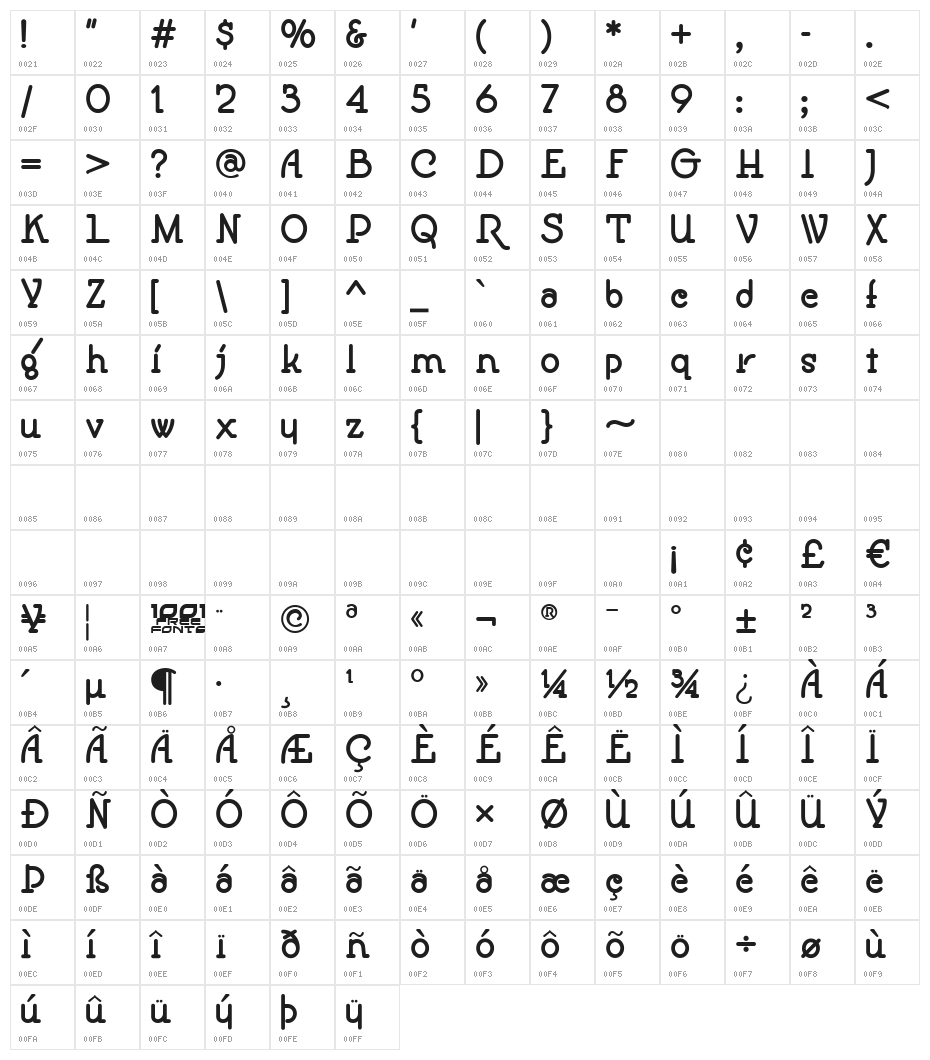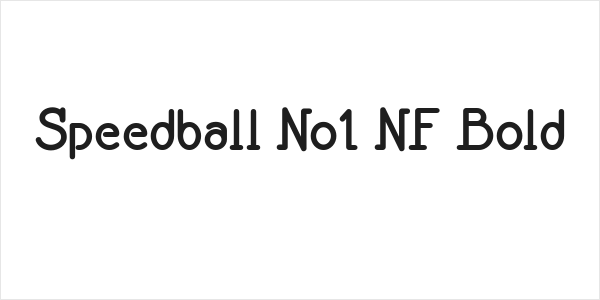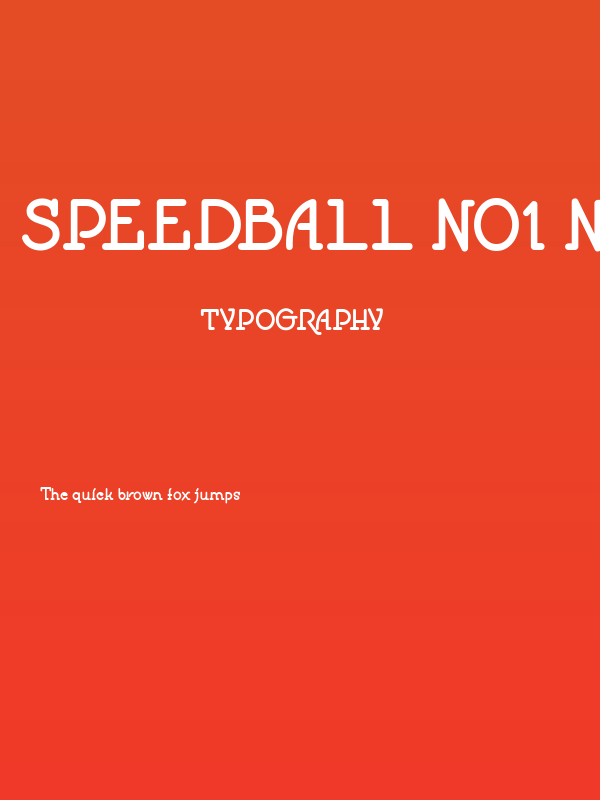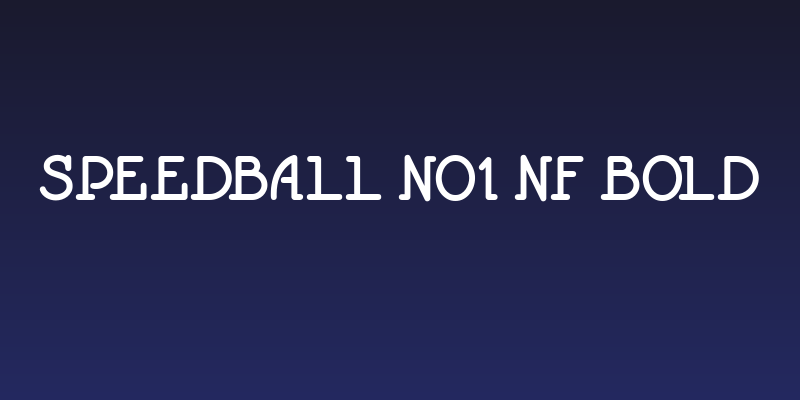
Speedball No1 NF Bold Font
Speedball No1 NF Bold Description
This font features a playful and bold style with rounded edges and a friendly appearance. The uppercase letters have a unique blend of curves and straight lines, giving them a distinctive look. The lowercase letters maintain a consistent roundness, enhancing the font's approachable feel. Numbers and special characters are designed to match the overall aesthetic, ensuring uniformity across all glyphs. The font's bold weight and rounded forms make it suitable for projects that require a touch of whimsy and creativity.
| Proposed Projects | Ideal for children's books, playful branding, posters, and creative advertising. |